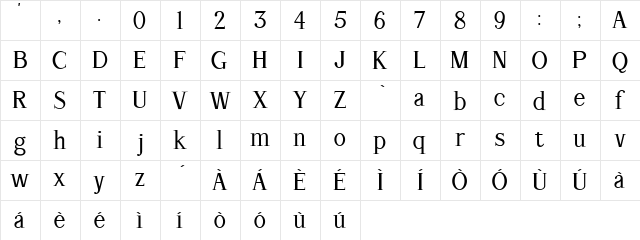
Arrow Serif
Design Context for Arrow Typeface
Arrow brings classic typographic sensibility to the table — its serifs and measured letterforms reflect centuries of print heritage.
Pro Tip: Set Arrow with slightly loose tracking in headlines to let each letterform's detail read clearly at display sizes.